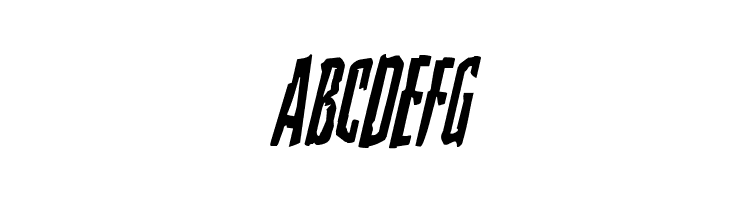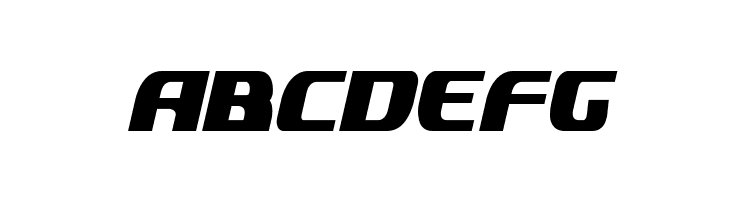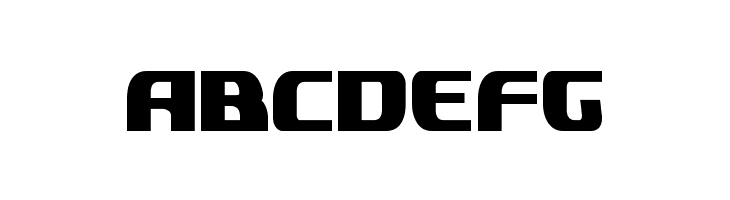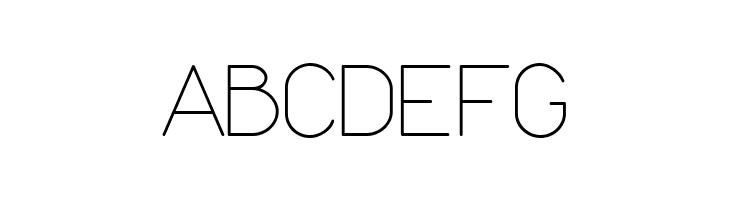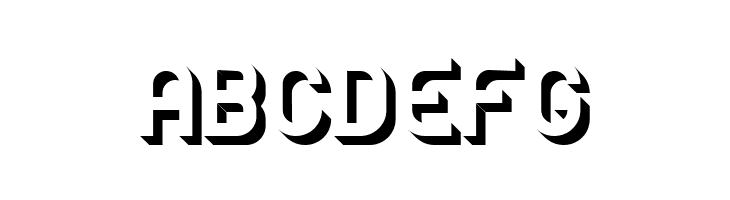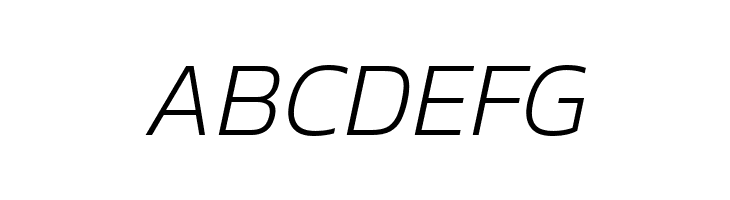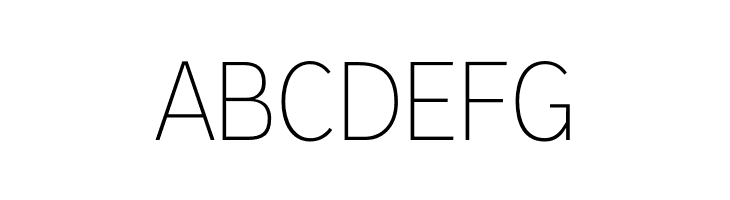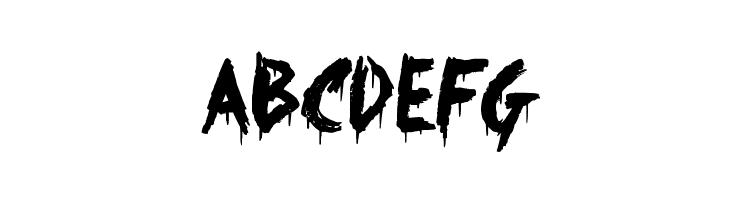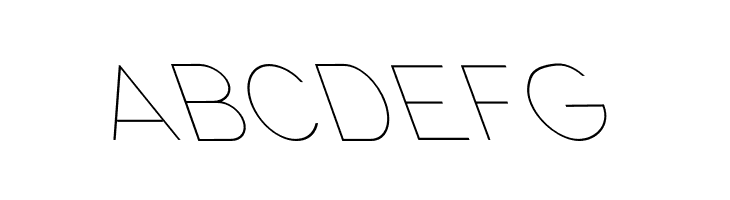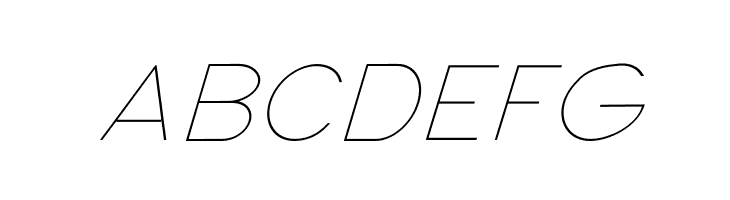
Bold, italicized font with sharp angles and high contrast.
A bold, condensed, italic font with high contrast and tight spacing.
A bold, extra-condensed italic font with a modern and dynamic style.
A bold, extra-condensed font with geometric shapes and minimal stroke contrast.
A modern, high-contrast font with elegant, elongated characters.
A modern, ultra-lightweight font with a minimalist and geometric design.
A sleek, modern extra-light font with geometric and minimalist design.
A bold, ultra-black font with a three-dimensional shadow effect.
A sleek, modern sans-serif font with an extra-light italic style.
A modern, extra light sans-serif font with clean lines and uniform spacing.
An artistic and decorative script font with intricate, overlapping letterforms.
A sleek, modern, extra-light italic font with high contrast and elegant slant.
A bold, jagged font with a horror-inspired, dripping effect.
A refined, ultra-light serif font with high contrast and elegant design.
A refined stencil serif font with ultra-light strokes and modern elegance.
A bold stencil font with high contrast and geometric shapes.
A modern, abstract font with characters formed by vertical lines.
A bold serif typeface with high contrast and strong, elegant letterforms.
A bold, italic serif font with high contrast and dynamic elegance.
A bold, high-contrast serif font with pronounced serifs and strong visual impact.